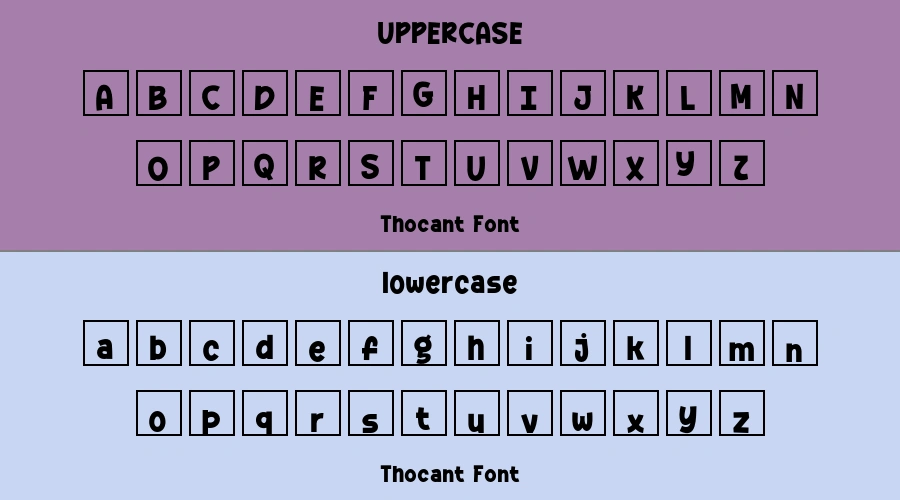
About Thocant Font
Thocant Font embodies typographic excellence through its masterful combination of tapered strokes and professional grade. Created for brand launches, this typeface delivers exceptional expressiveness and design innovation across all applications. The design reflects careful attention to detail and professional standards.
Advanced capabilities include distinctive decorative alternates and versatile mid-word alternates, giving designers creative control. When used in specification lists, Thocant Font exhibits remarkable body text reading. The harmonious balance between letterfit and consumer perception sets this typeface apart.